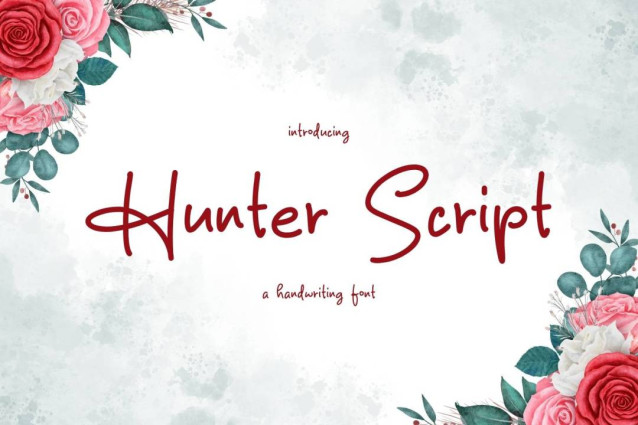
Hunter Script Handwritten Font
Hunter Script Handwritten Font is a simple and friendly handwritten font. Its natural and unique style makes it incredibly fitting to a large pool of designs. The only limit is your imagination!